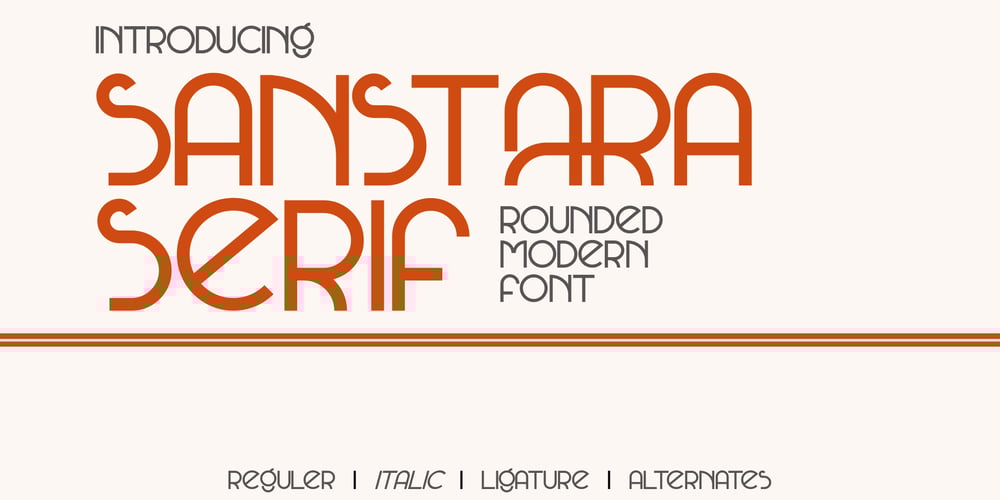
Sanstara
Sanstara font
Sanstara Font Family was designed by Anggun Bangkit Hutami and published by Prasetype. Sanstara contains 2 styles and family package options. Sanstara is rounded, modern all caps sans serif font. This font is PUA encoded which means you can access all of the glyphs and swashes with ease! Add it confidently to your favorite creations and let yourself be amazed by the outcome generated.-Letters, numbers, punctuation, multilingual support.-Italic and regular versionsAny Questions? just ask!